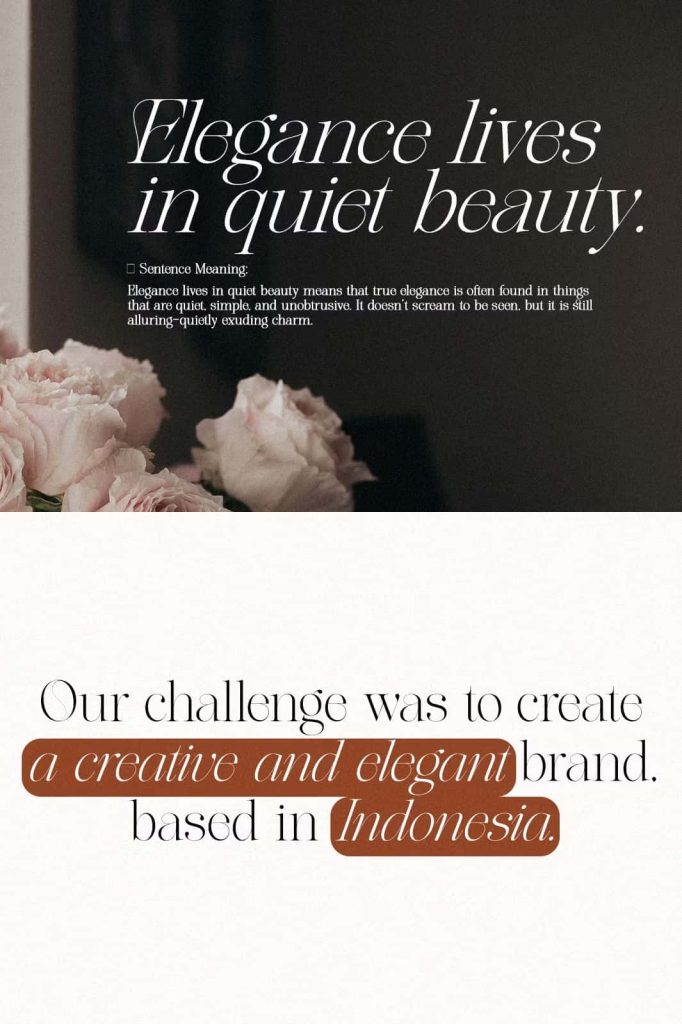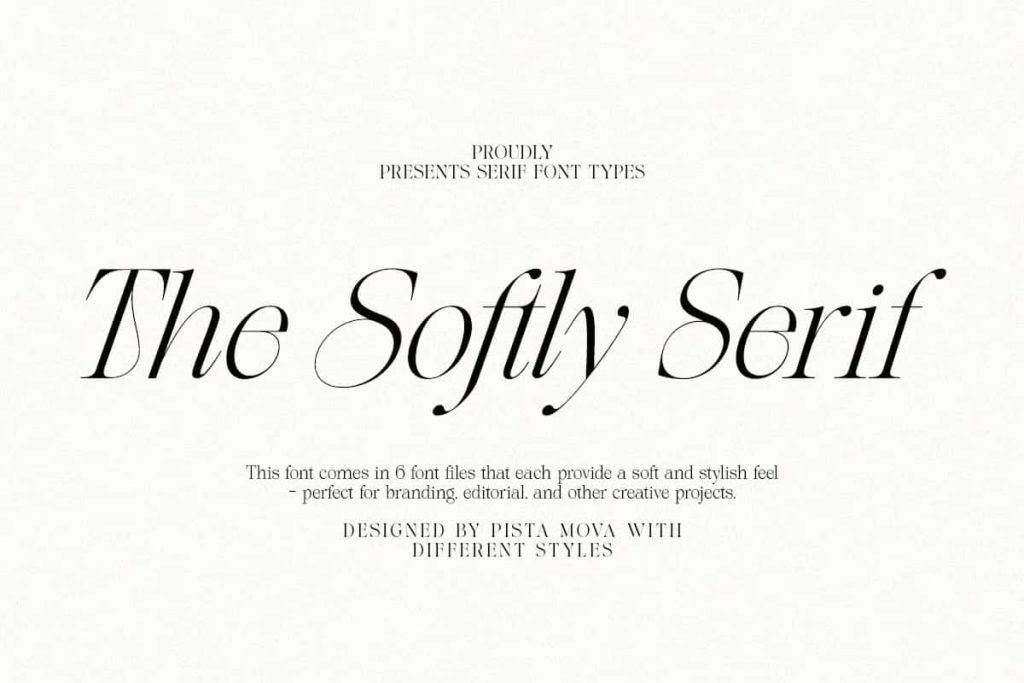
The Softly Serif
Softly Serif Font: A Modern Italic Typeface with Timeless Elegance
Softly Serif Font introduces a refined and sophisticated approach to typography by combining classic serif tradition with a modern italic style. Designed with precision and artistic intent, this typeface delivers a graceful balance between structure and fluidity. Its elegant curves and high-contrast strokes create a visually captivating rhythm that elevates any design project.
This font empowers designers to communicate with clarity and style. It enhances visual storytelling while maintaining a polished and professional appearance. Softly Serif Font stands as a reliable choice for anyone who values both beauty and functionality in typography.
Embrace the Beauty of High-Contrast Design
Softly Serif Font features a carefully crafted high-contrast structure that draws attention without overwhelming the reader. Thick and thin strokes interact harmoniously, creating depth and visual interest across every letterform. This contrast adds a sense of sophistication that feels both classic and contemporary.
The italic styling introduces a natural sense of movement, guiding the reader’s eye smoothly across the text. Each letter flows effortlessly into the next, forming a cohesive and elegant composition that enhances readability while maintaining a distinctive personality.
Graceful Curves That Define Character
The defining feature of Softly Serif Font lies in its graceful curves and subtle detailing. Every character reflects a deliberate design process that prioritizes elegance and balance. The gentle swoosh present in the italic forms adds a layer of refinement, making the typeface ideal for projects that require a sophisticated tone.
This attention to detail ensures that your designs feel intentional and well-crafted. It allows you to create compositions that resonate with audiences who appreciate refined aesthetics.
Perfect for Editorial and Branding Projects
Softly Serif Font excels in editorial design, where readability and visual appeal must work together seamlessly. It enhances magazine layouts, blog articles, and print publications by adding a touch of elegance that keeps readers engaged. The font’s structure supports long-form content while maintaining a stylish and cohesive look.
In branding, Softly Serif Font helps establish a premium and trustworthy identity. It communicates sophistication and confidence, making it an excellent choice for luxury brands, creative studios, and modern businesses. Designers can use it to craft logos, brand guidelines, and marketing materials that feel both timeless and relevant.
Elevate Digital and Web Experiences
Softly Serif Font performs beautifully in digital environments. It adapts well to website design, landing pages, and user interfaces that require a clean yet elegant typographic style. Its readability across different screen sizes ensures that your message remains clear and visually appealing.
The font pairs effectively with minimalist layouts, allowing it to become a focal point without overwhelming other design elements. This makes it a valuable asset for modern web design projects that prioritize clarity and aesthetics.
Versatility Across Creative Applications
Softly Serif Font offers versatility that extends beyond editorial and branding work. It enhances invitations, packaging, social media graphics, and promotional materials with a refined and stylish presence. Its elegant structure allows it to adapt to both formal and creative contexts, giving designers the freedom to explore different visual directions.
Whether you are designing a high-end product label or a contemporary digital campaign, this typeface supports your vision with consistency and elegance. Its ability to maintain clarity while delivering style makes it a dependable choice for diverse applications.
Why Choose Softly Serif Font
Softly Serif Font stands out because it merges timeless serif tradition with modern design sensibilities. It offers a unique combination of elegance, readability, and visual impact. Designers can rely on it to create work that feels polished, intentional, and engaging.
By choosing Softly Serif Font, you gain access to a typeface that enhances both aesthetic appeal and communication. It allows you to craft designs that leave a lasting impression while maintaining a refined and professional tone.
Softly Serif Font delivers a harmonious blend of classic charm and contemporary elegance. Its italic form, high-contrast strokes, and graceful curves create a typeface that feels both timeless and modern. Whether you are working on editorial layouts, branding, or digital experiences, this font provides the tools to elevate your designs and communicate with sophistication.